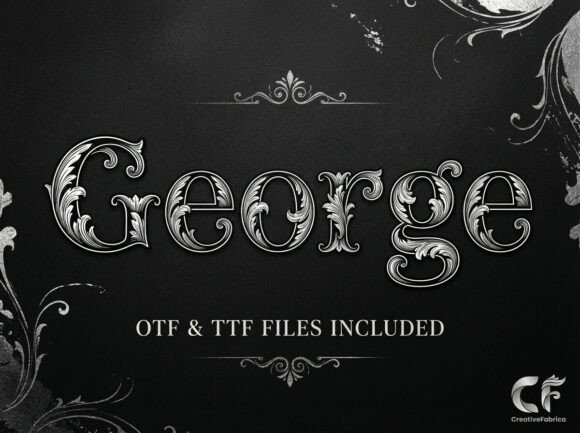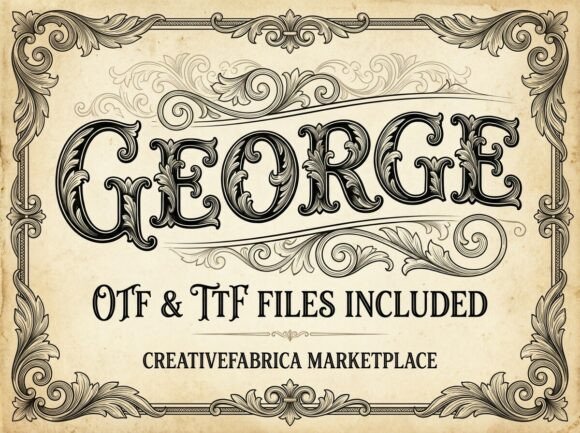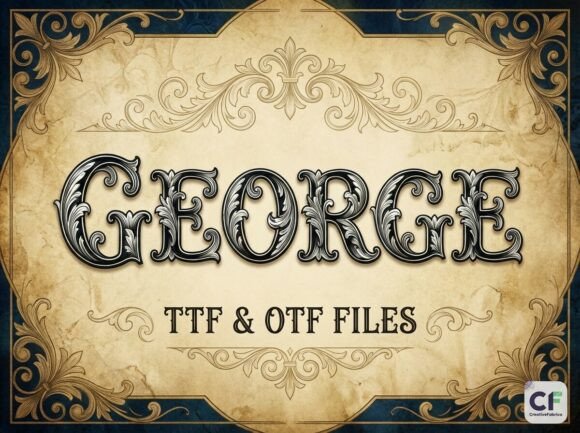
The Elegance of George: A Victorian Engraving Font
I still remember the design project that led me to discover the George font. I was working on a luxury branding project for a high-end jewelry client, and I was struggling to find the perfect font that exuded sophistication and prestige. The client wanted a font that would make their brand stand out, something that would convey the luxury and elegance of their products. After hours of searching, I stumbled upon George, an ornate Victorian engraving font that immediately caught my attention.
A Personal Review of George
George is more than just a font; it’s a statement of sophistication and unparalleled detail. Here’s what I love about it:
- ✨ Lush acanthus leaf flourishes that add a touch of elegance to any design
- ✅ Elaborate hand-drawn scrolls that nestle within a high-contrast serif, creating a luxurious feel
- 💯 The perfect blend of Victorian-era charm and modern sophistication
- 🎨 Highly versatile, making it suitable for a wide range of design projects, from premium spirit labels to boutique jewelry branding
While George is an exceptional font, it’s not without its quirks. Here are a few things to keep in mind:
- 🤔 The font can be a bit over-the-top, so use it sparingly to avoid overwhelming your design
- ⚠️ Some of the more intricate flourishes may not display well at smaller font sizes
The Story Behind George
George is a modern interpretation of traditional Victorian engraving fonts. The font’s creator drew inspiration from the ornate engravings found on luxury packaging and high-end jewelry from the Victorian era. The result is a font that exudes sophistication, elegance, and refinement.
- Q: What is George font best for?
- A: George is perfect for luxury branding, high-end packaging, premium spirit labels, and boutique jewelry branding.
- Q: Does George support OpenType features?
- A: Yes, George is an OpenType font that supports advanced typographic features, including stylistic alternates, glyphs, and more.